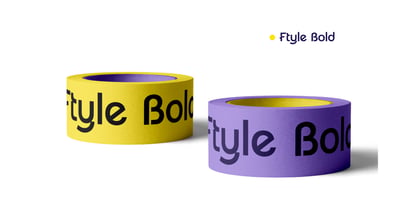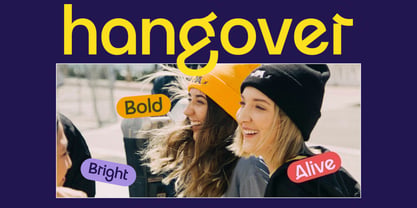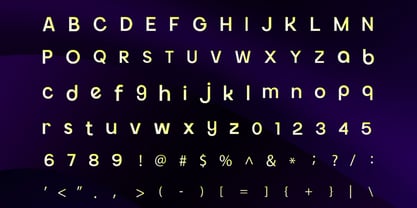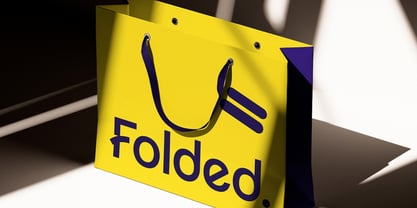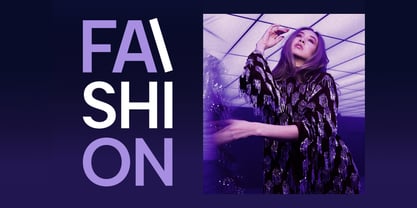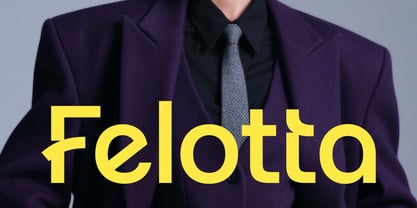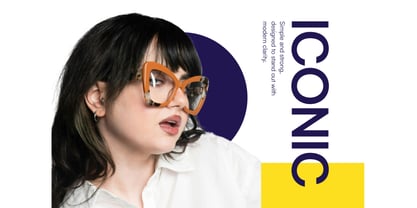
Felotta
The Felotta Font Family was designed by Moch Rasjid Wiyono and published by Brandearth. Felotta contains 1 styles. More about this family
Felotta is a modern bold sans serif typeface featuring clean geometric shapes, smooth curves, and a confident contemporary presence. The package includes uppercase, lowercase, numerals, punctuation, and multilingual support, suitable for high-impact headlines and branding. Designed with strong proportions and balanced spacing, it delivers clarity and versatility across print and digital media. Felotta is relevant for brands seeking a strong yet refined visual identity, offering a modern sans serif style that works seamlessly across fashion campaigns, corporate branding, editorial layouts, social media graphics, website headers, advertising materials, and professional presentations.